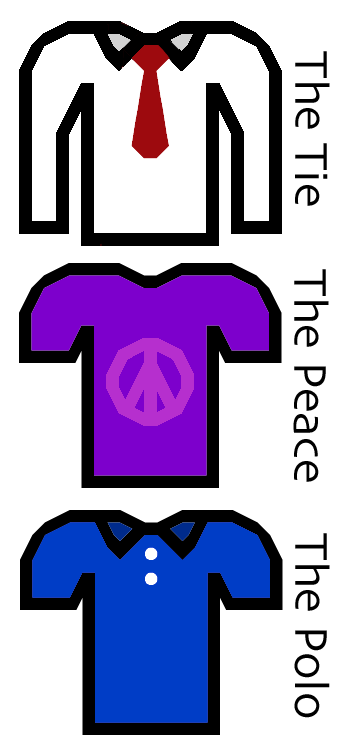
A - White T-shirt
B - Solid T-shirt
C - Referee shirt
D - I ♥ NY shirt
E - Long sleeve shirt w/ tie
F - White long sleeve shirt
G - Solid long sleeve shirt
H - Peace sign shirt
I - Polo Shirt
J - Sports Jersey
K - White tank top
L - Solid tank top
M - Basketball tank top